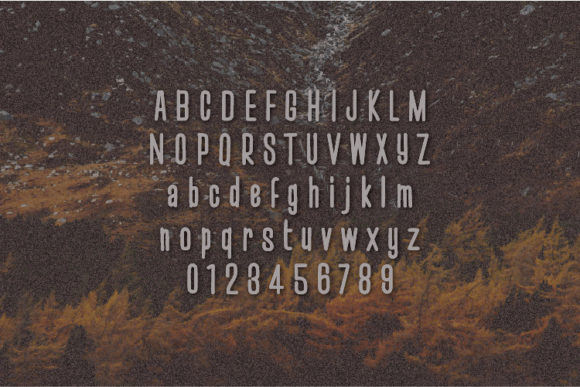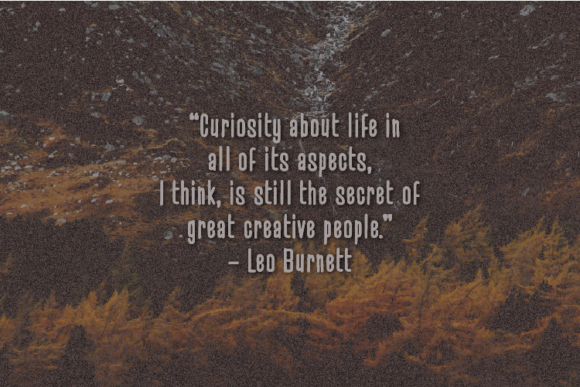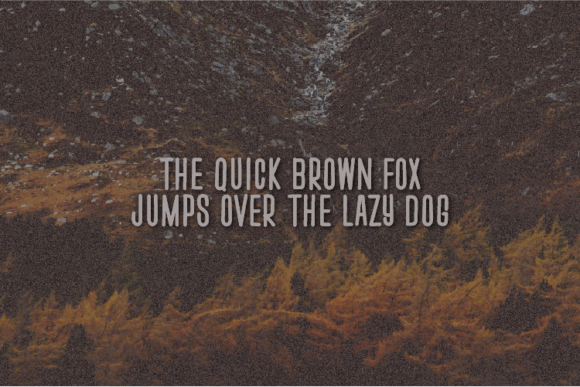
Introduction to Prostagez Font
Have you ever stared at a blank canvas, trying to conjure up the perfect design for your next creative project? The blank page can be daunting, but what if you had the right tools to bring your vision to life? For designers and creatives, finding the perfect font can be a game-changer.
Enter the Prostagez Font, a high-quality design resource that’s sure to elevate your craft. This elegant sans serif font boasts a natural and refined style that’s perfect for any creative project. Whether you’re working on a logo, brochure, or website, the Prostagez Font is an excellent choice.
One of the best things about the Prostagez Font is its versatility. With a transparent background, it’s easy to layer over images or other design elements, making it a valuable asset for designers who need a reliable font for their free download needs.
Key Features of Prostagez Font
- Unique, bold font with a transparent background for added versatility
- Perfect for logos, branding, and typography in creative projects
Honest Review: Prostagez Font
I recently came across the Prostagez Font, a free download that caught my attention due to its unique design and versatility. As a designer, I was excited to see if it would live up to its potential.
- ✨ Unique and creative design that adds a touch of sophistication to any project
- ✨ High-quality font that’s perfect for a wide range of creative projects
- ✨ Transparent background option allows for easy customization and editing
- ⚠️ Limited character set, which may not be ideal for extensive or complex text-based projects
Overall, I was impressed with the Prostagez Font’s potential as a design resource. While it may have some limitations, its unique design and high-quality rendering make it a great option for personal or small-scale creative projects. I’d definitely recommend giving it a try, especially if you’re looking for a free download that can add some flair to your design.
The Prostagez Font is commonly used in creative projects that require a unique and modern look. It can be used for titles, headings, and body text in designs such as brochures, flyers, and social media graphics.